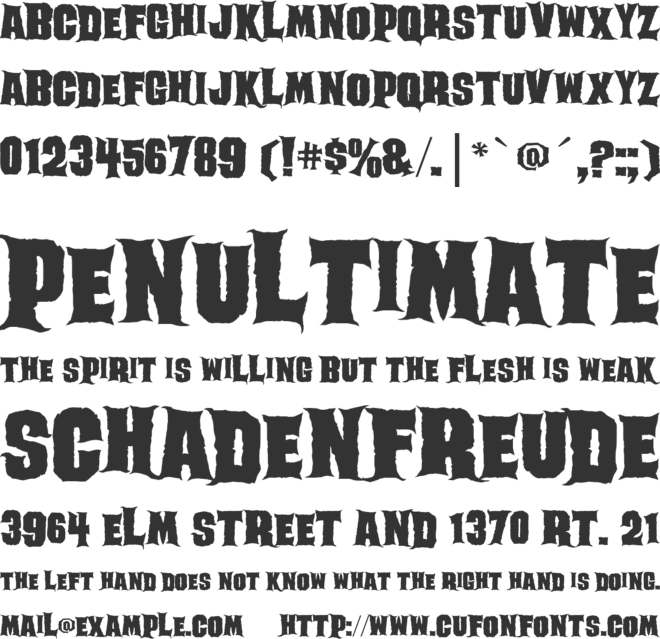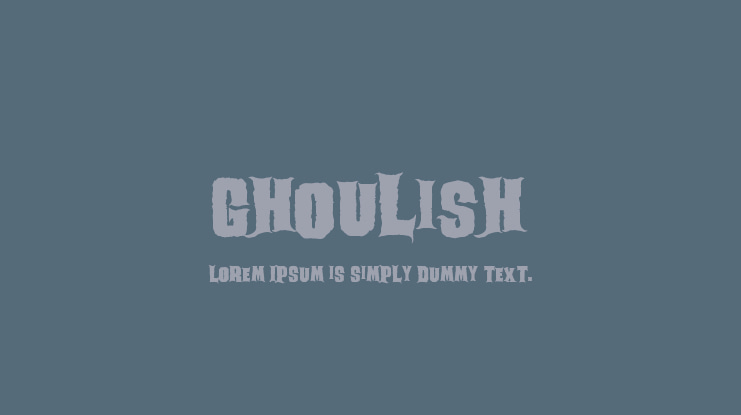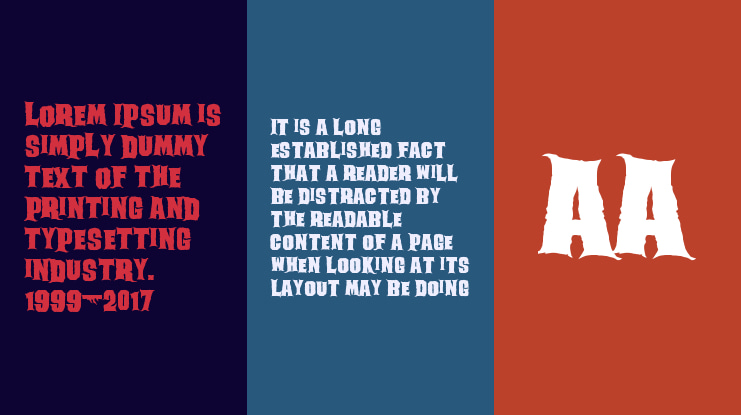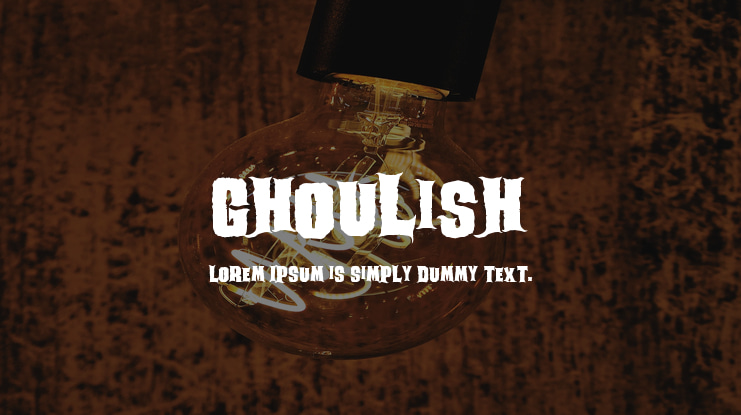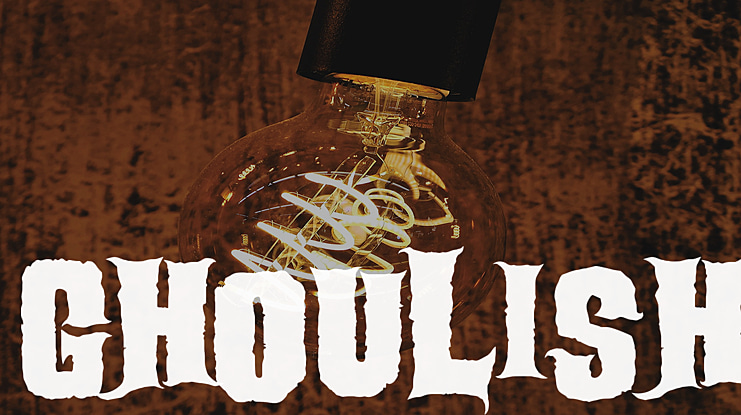
Ghoulish Font
Inspired by vintage horror flicks and a love of all things ghastly, "Ghoulish" is a typeface only a monster could love. Haunt your designs and layouts with this exclusive font by Rue Morgue Magazine's Art Director "Ghoulish" Gary Pullin.